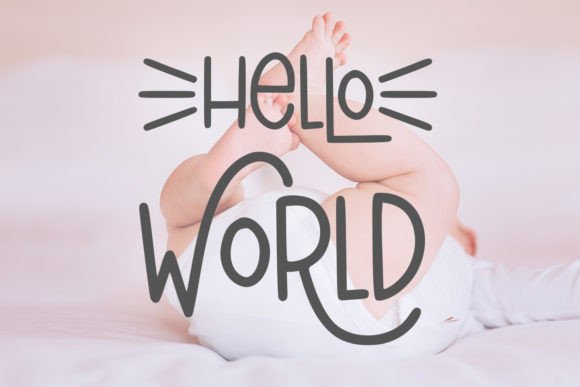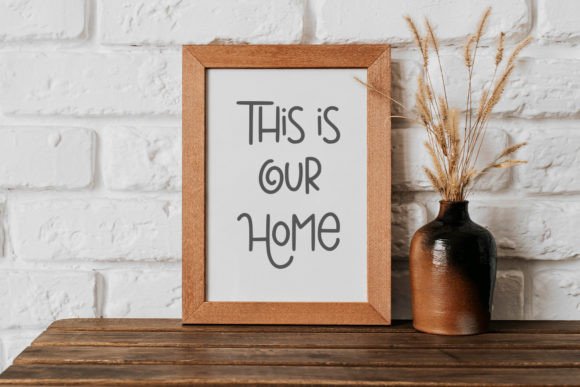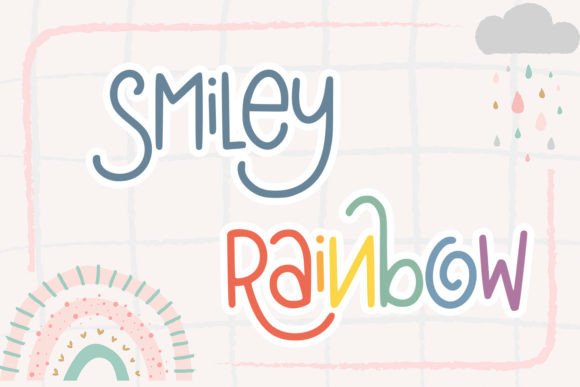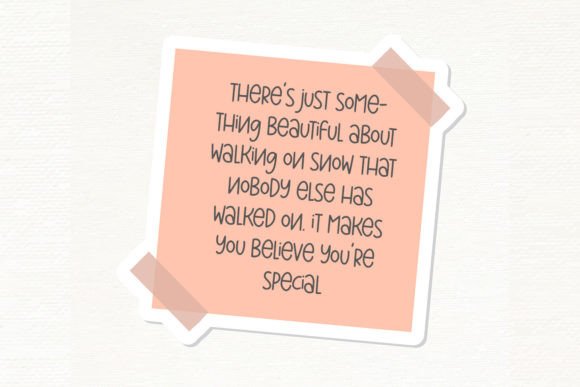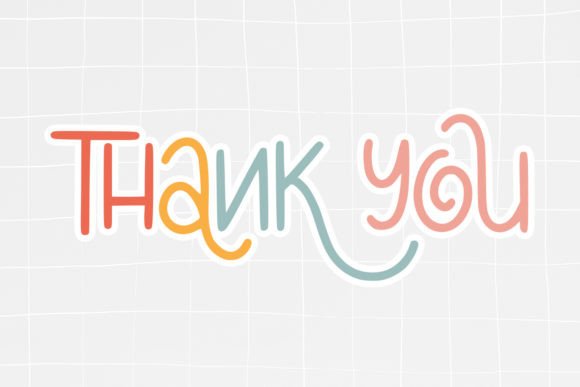
Introduction to Holiday Line Font
Holiday Line – cute moniline font – Holiday Line is a cheerful display font.
It is great for t-shirt designs, quotes, mugs, tote bag designs, cards, banners, social media, and anything about your projects This font is PUA encoded, which means you can access all of the glyphs and swashes with ease.